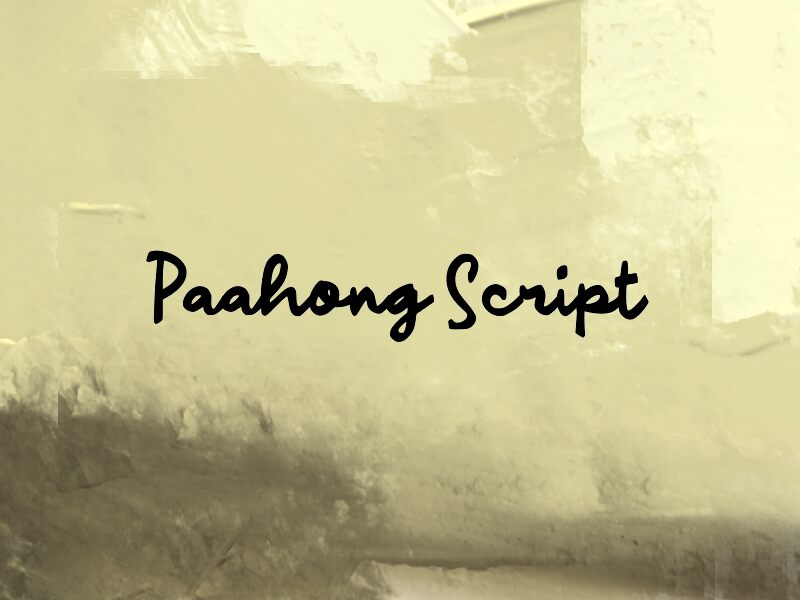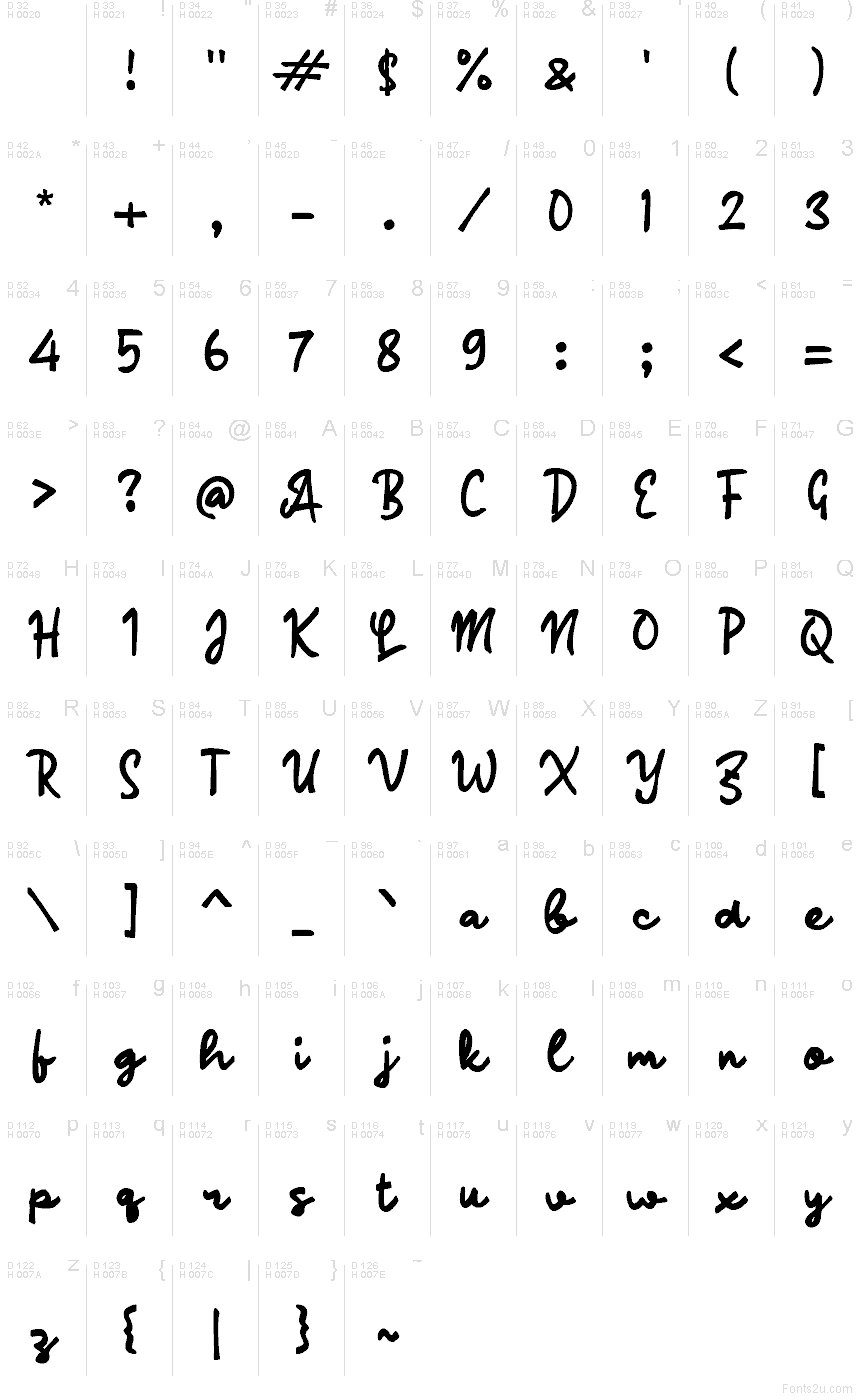
Paahong Script
Paahong Script font by wep is a free handwritten font. This casual script typeface has an easy, marker-pen flow, with rounded curves and even strokes that feel friendly without getting messy. Letters connect smoothly and stay open, so you get that personal, jot-it-down energy while everything stays readable at a glance.
Using Paahong Script, you can add a warm, human touch to greeting cards, social media graphics, quote posts, planners, packaging, and cozy brand logos. This free font shines in medium to large sizes, where its inky, slightly bouncy rhythm can breathe. For longer supporting text, pair Paahong Script with a clean sans serif to keep layouts clear while letting the handwriting lead the mood.